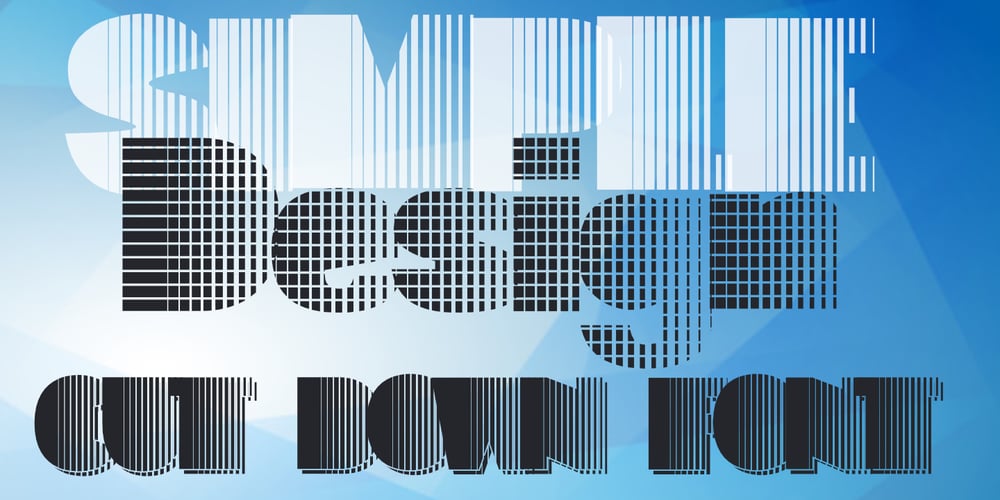
Grate
Grate font
Grate Font Family was designed by Otto Maurer and published by Otto Maurer. Grate contains 6 styles and family package options. Grate is a simple styled Font, it is best for Logo designing. How much we can cut down a Font till it is possible to reat it? That was the question, and this font is the answer. I think it is so much cut down but Human can read it. It is total simple Kerning inside. You can overlay the glyphs and it is almost readable.